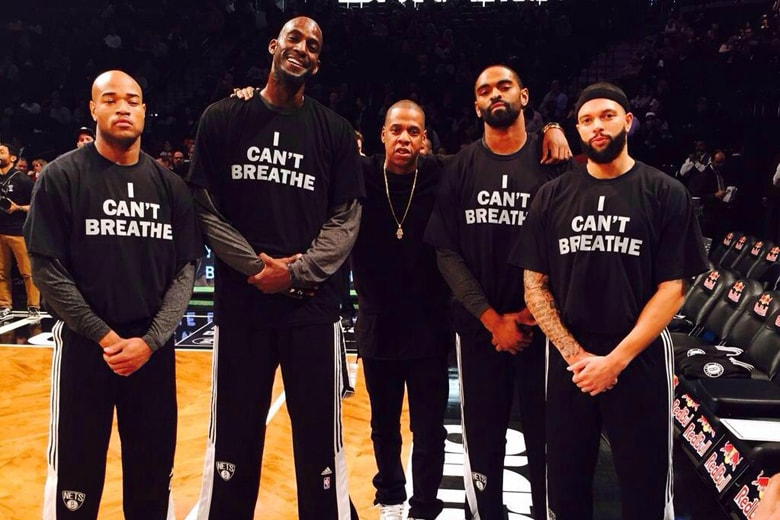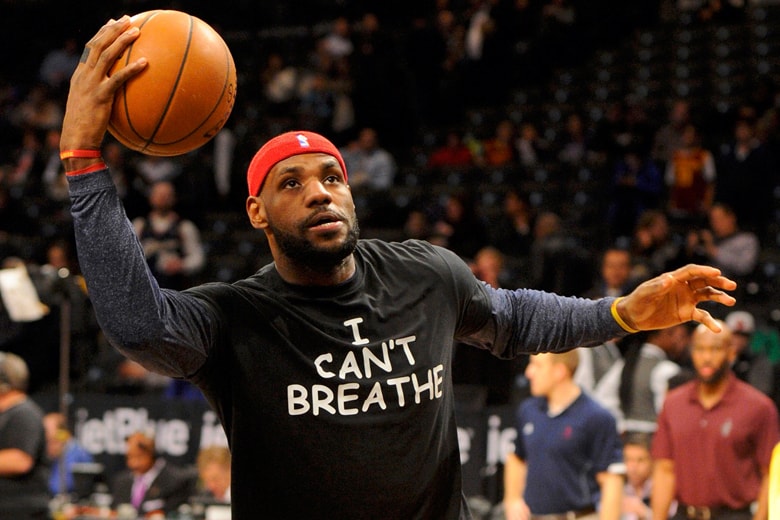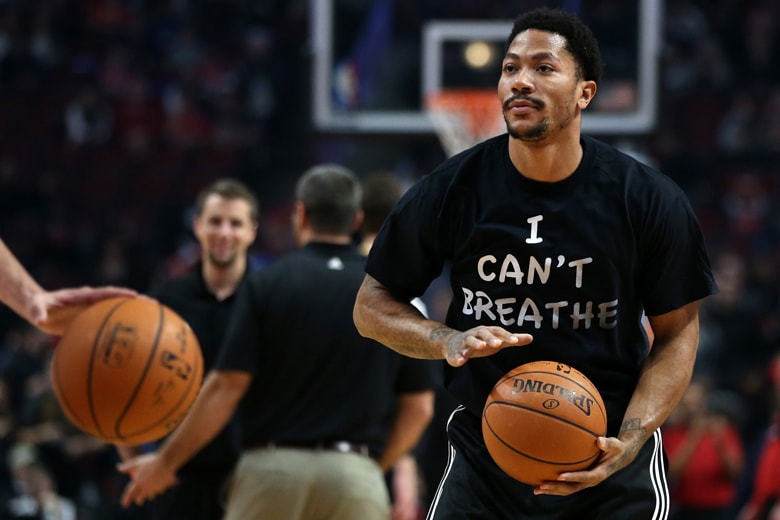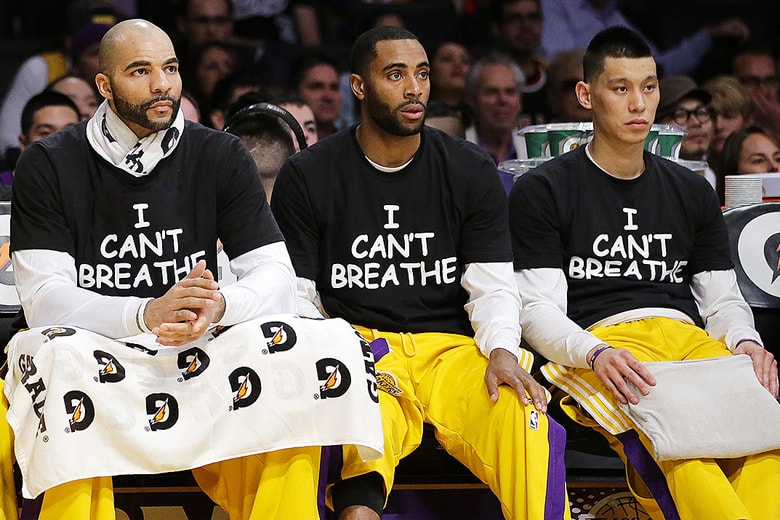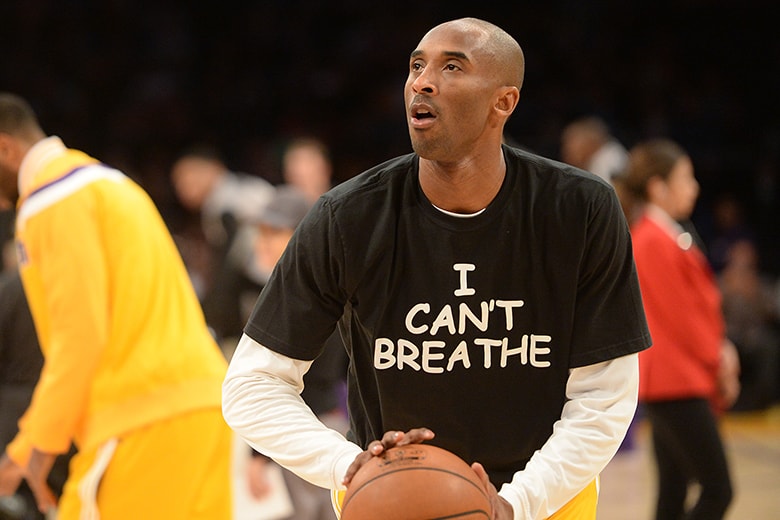
"I Can't Breathe" T-Shirts Criticized for Having Comic Sans Font
Since its birth in 1994, the Comic Sans font has received no shortage of hate from the aesthetically inclined in its 20-year existence. This vitriol for the font has been so salient that it has occasionally obscured the main issue at hand, as is the case for the “I Can’t Breathe” shirts that have been created recently to draw attention to the last words of Eric Garner, the 43 year-old who died after being put in a fatal chokehold by a New York policeman. Having appeared on the backs of prominent NBA players such as Derrick Rose, LeBron James, Kobe Bryant, and Deron Williams, netizens took to social media to voice their distaste for the font, relegating any mention of the actual incident to that of a footnote. What are your thoughts on the issue? Share your comments.